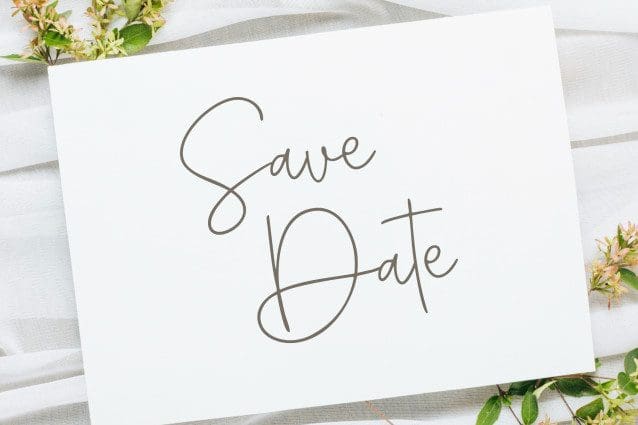
Amichan Script Font
Amichan Script Font – An elegant and beautiful monoline typeface is perfect for websites, modern logos, brand identities, social media, quotes, wedding invitations and anything you want!